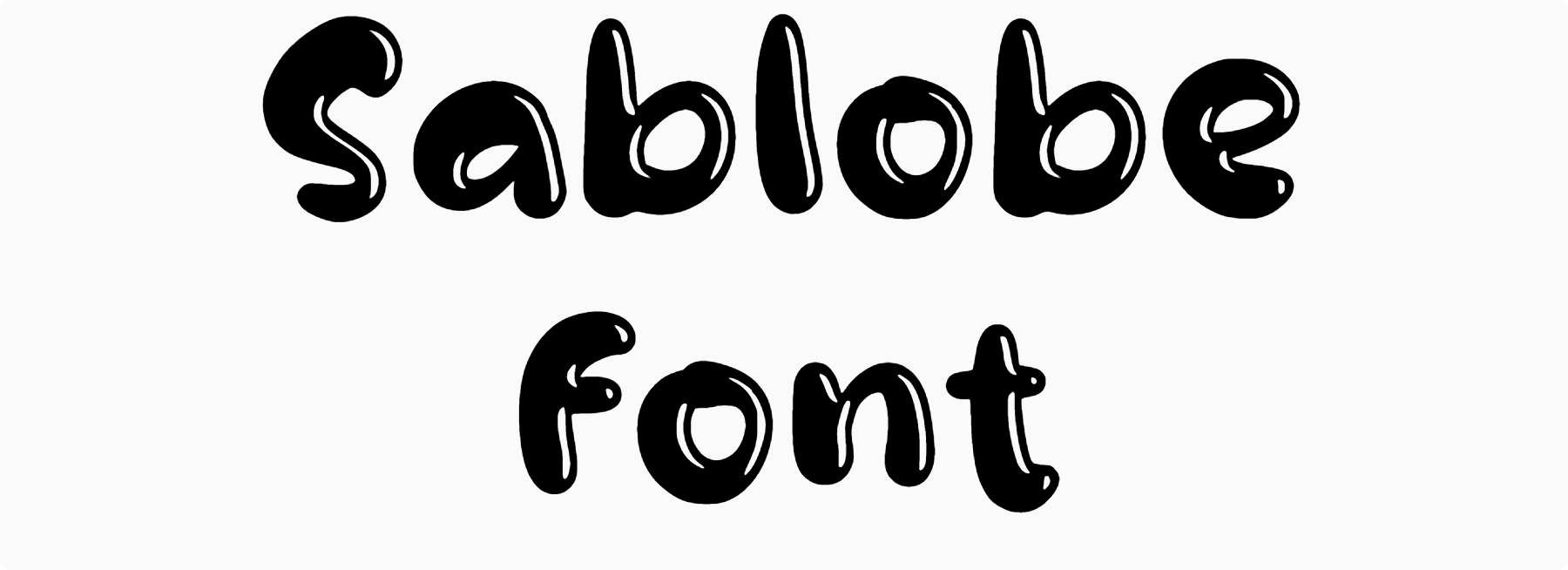
Sablobe
Sablobe is a cartoon font created by Wahyu Eka Prasetya (2024). Its bouncy, rounded letters feel playful, like lettering from a cartoon or a comic book. It's a free download, and you can try it with your own text in the preview above first.
- Designer: Wahyu Eka Prasetya
What You Can Type With Sablobe
Sablobe covers the full alphabet in upper and lowercase, plus all ten numbers, so you can set names, dates and prices without switching fonts. Common punctuation such as &, !, ? and @ is included as well. It doesn't include accented letters such as é or ñ, which makes it an English-only font.
Where Sablobe Works Best
Sablobe is a natural fit for kids' books, birthday invites and fun YouTube thumbnails. Its lowercase letters are tall compared to the capitals, which keeps it readable at smaller sizes. Cartoon fonts are great for short, fun lines. If you place it over a busy photo, add a thick outline or a drop shadow so it stays readable.
Does Sablobe support accented letters?
No. Sablobe has no accented letters such as é, ñ or ü, so it's best for English text.